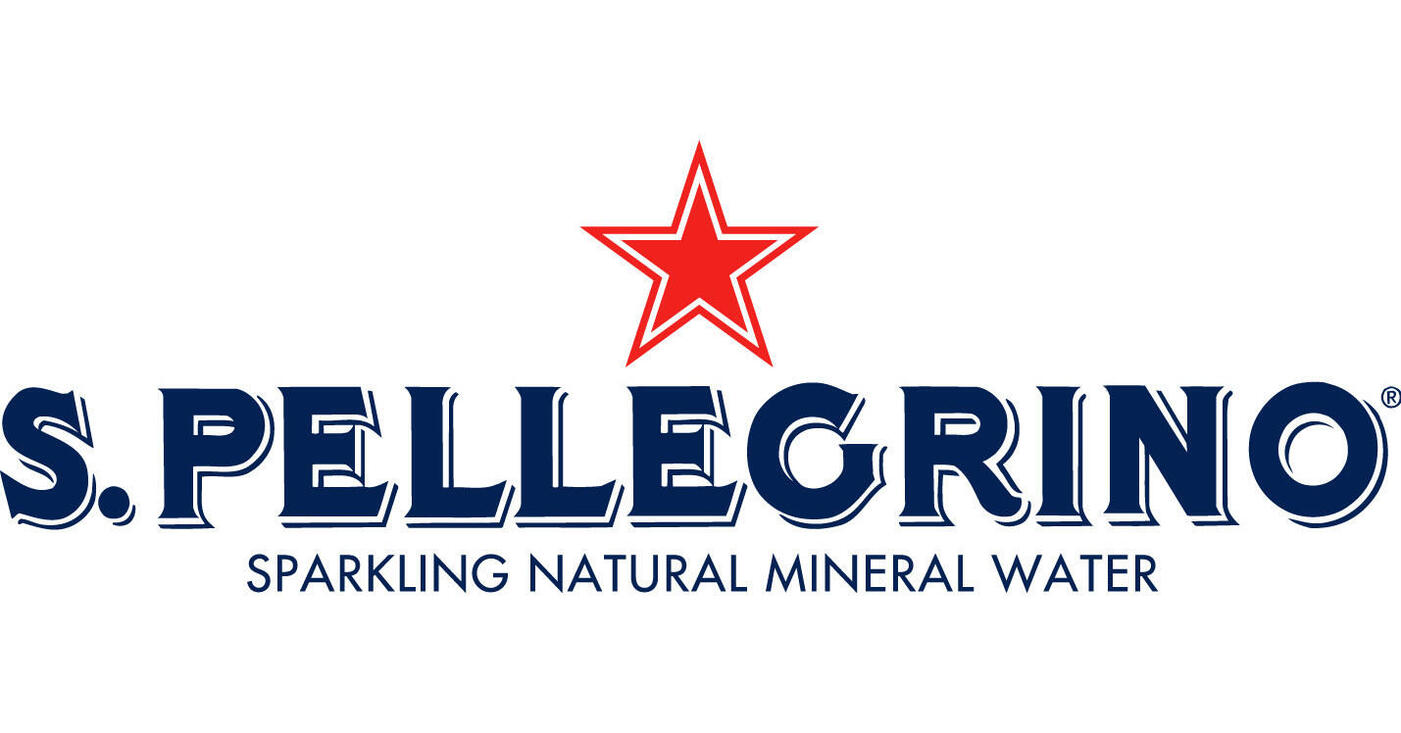
Looking for Serif font with shadow as close to S. Pellegrino logo as possible
New client is in love with San Pellegrino logo and wants to use the font in their marketing. I informed them that as it is a corporate logo, I doubt that exists as a font. I've found a couple of fonts I could probably talk them into, however they are wanting it for internal use and I doubt anybody there could create the shadow effect they love. Hoping someone can suggest something similar or confirm that it doesn't exist. Thanks so much!